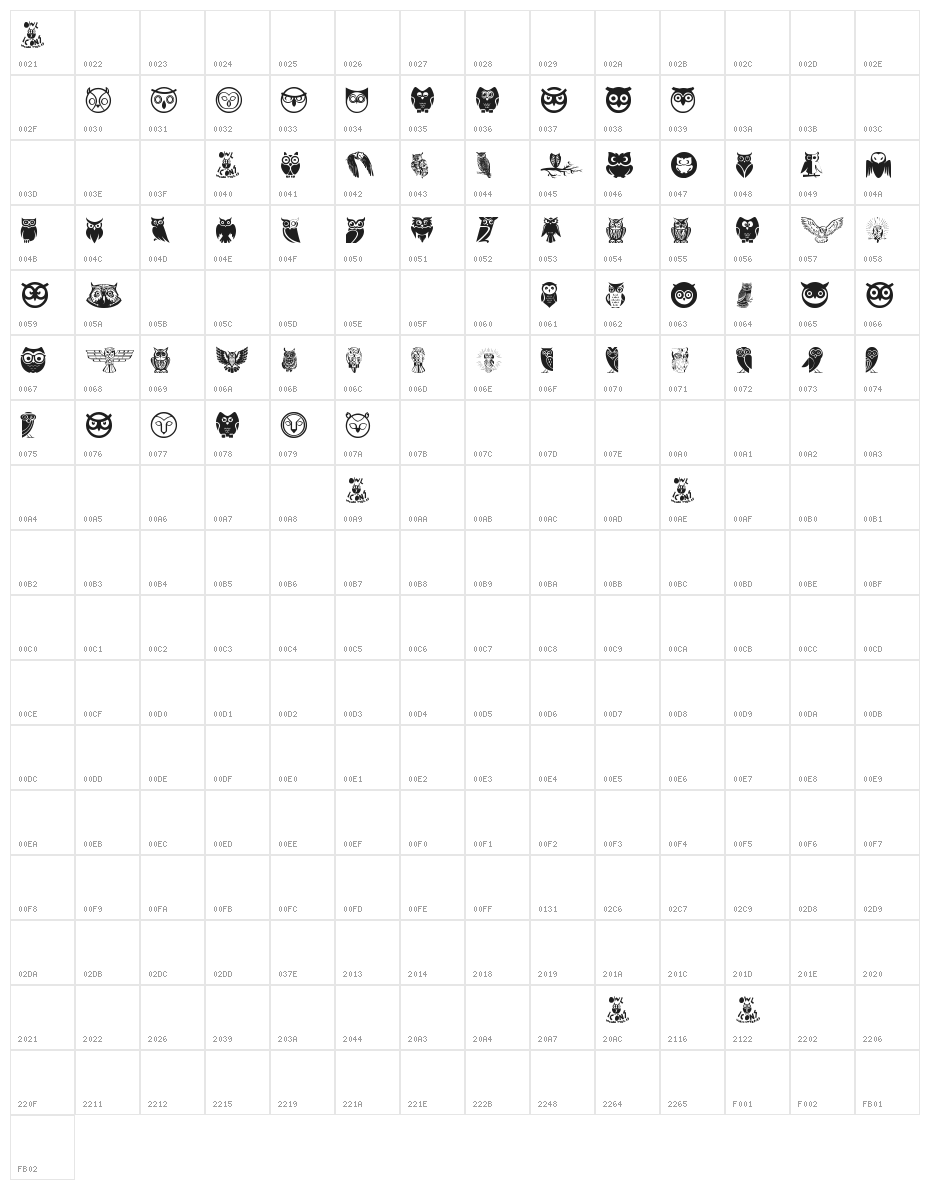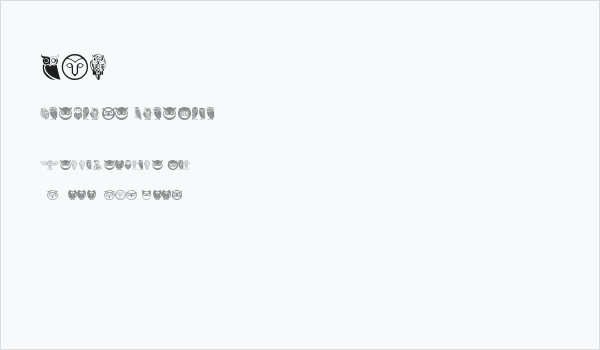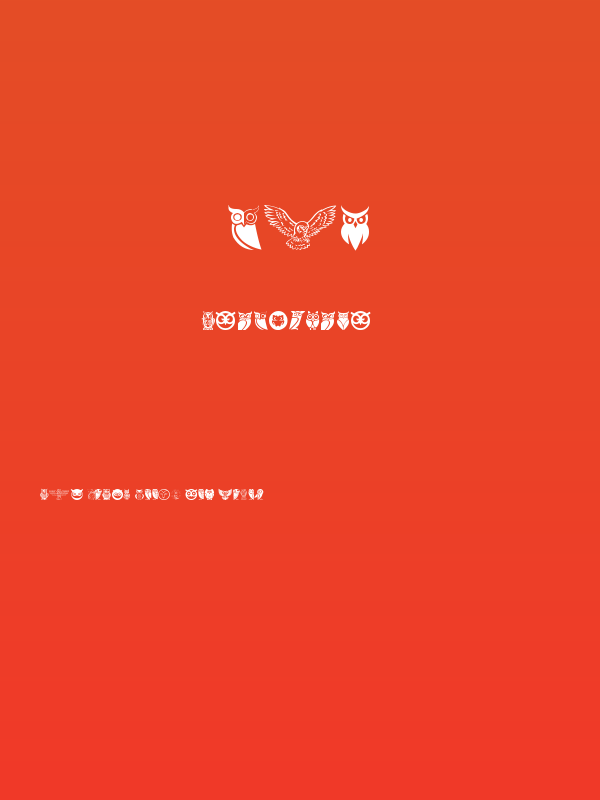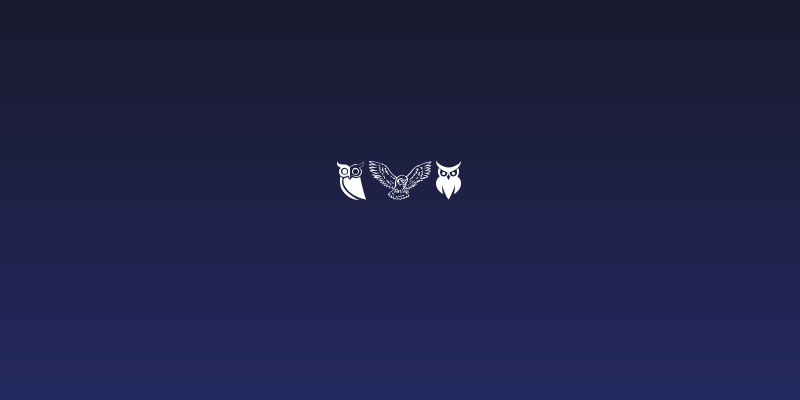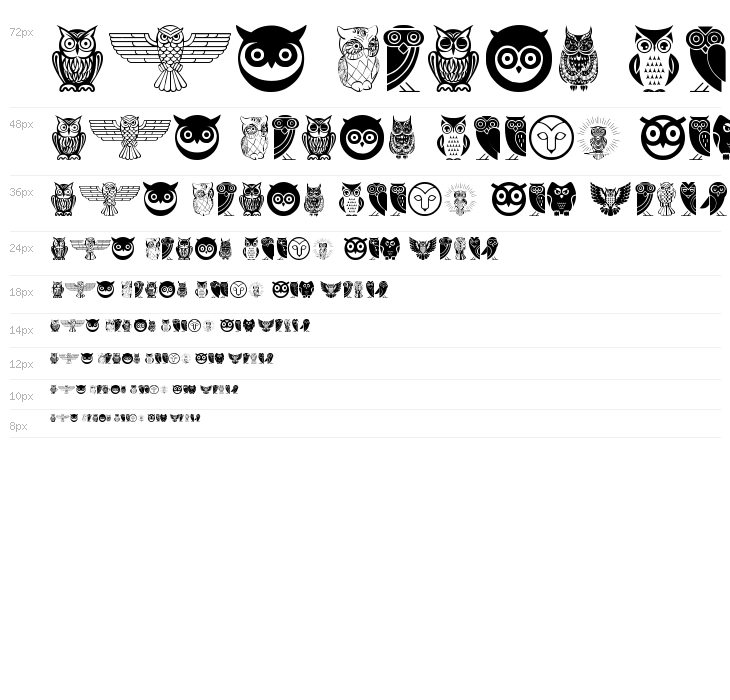
Owl Font
Owl Description
A collection of owl-themed icons and symbols in various styles ranging from detailed and realistic to simple and stylized silhouettes.
| Overall Style | Decorative, illustrative |
| Use Case | Icons, logos, decorative graphics |
| Proposed Projects | Use in nature-themed designs, educational materials, logos, branding for wildlife organizations, and decorative elements. |